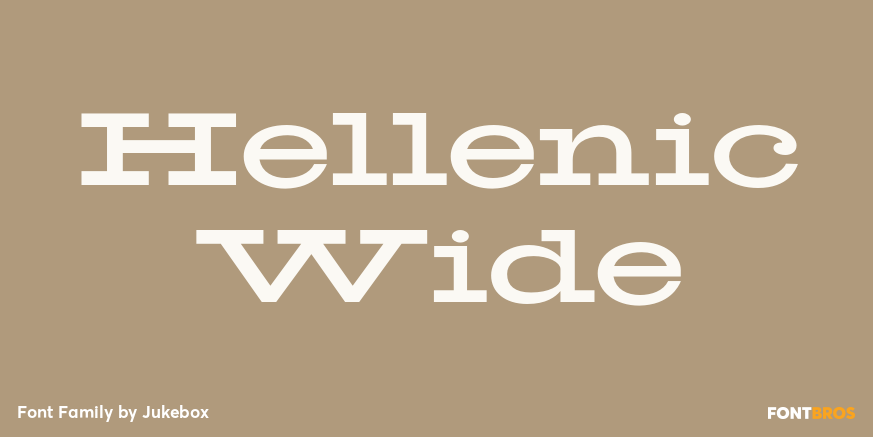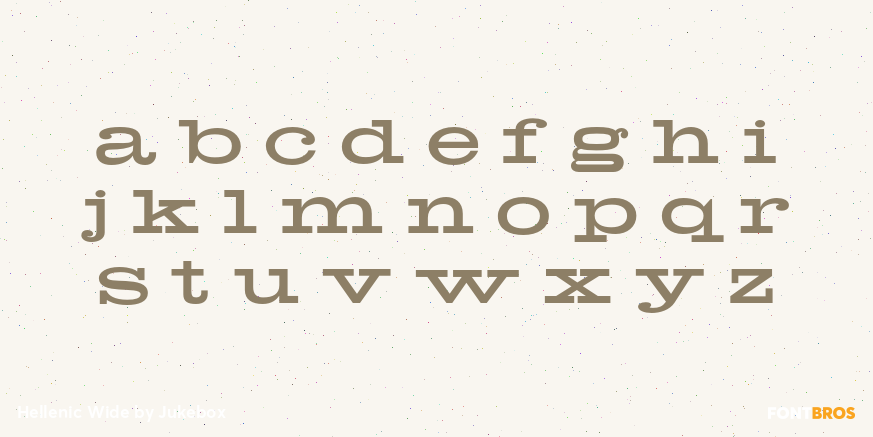
Hellenic Wide
Font Family by Jukebox
Hellenic Wide is a slab serif typeface digitally revived for the Jukebox library from the ATF original. Its strong horizontal letterforms give it a classic mid 20th century look.